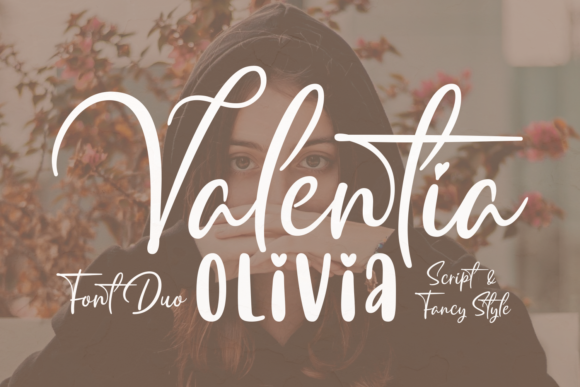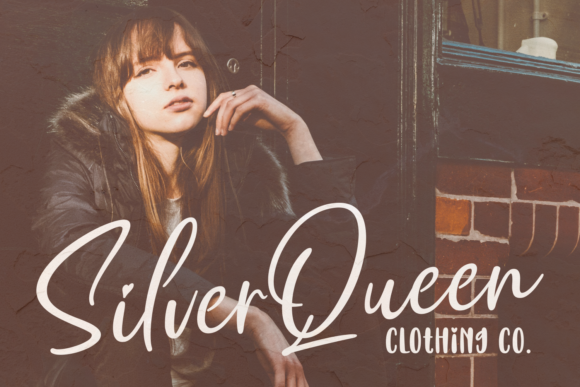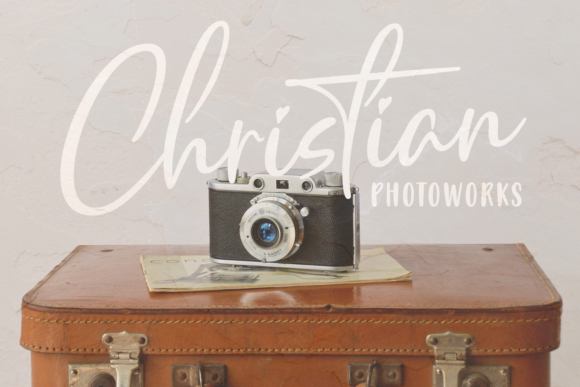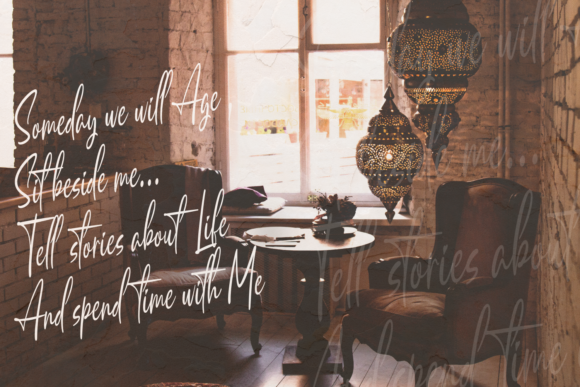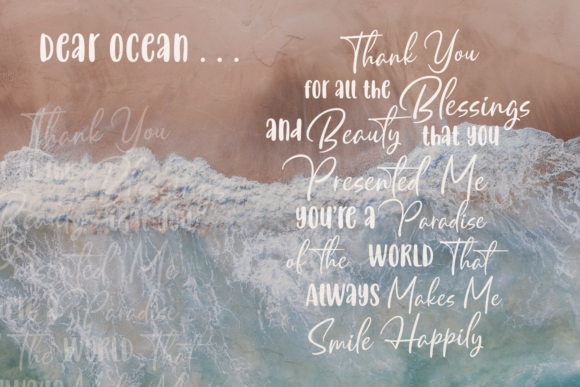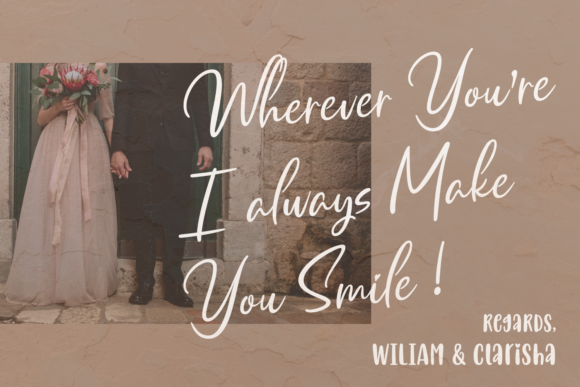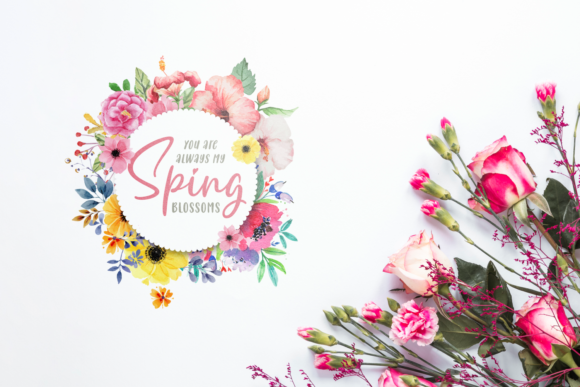
Valentia Olivia Font
About Valentia Olivia Font
Valentia Olivia is a beautiful and charming font duo. Together, these two fonts will turn any design idea into a stand out!